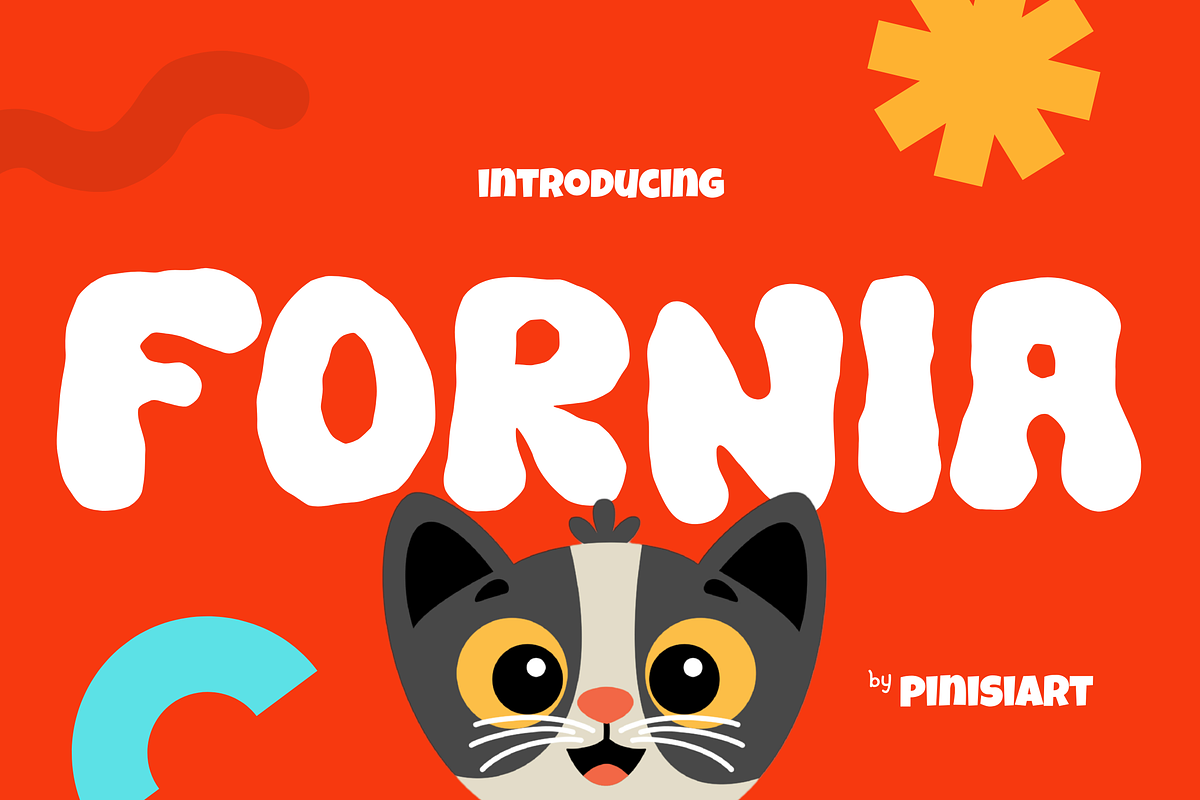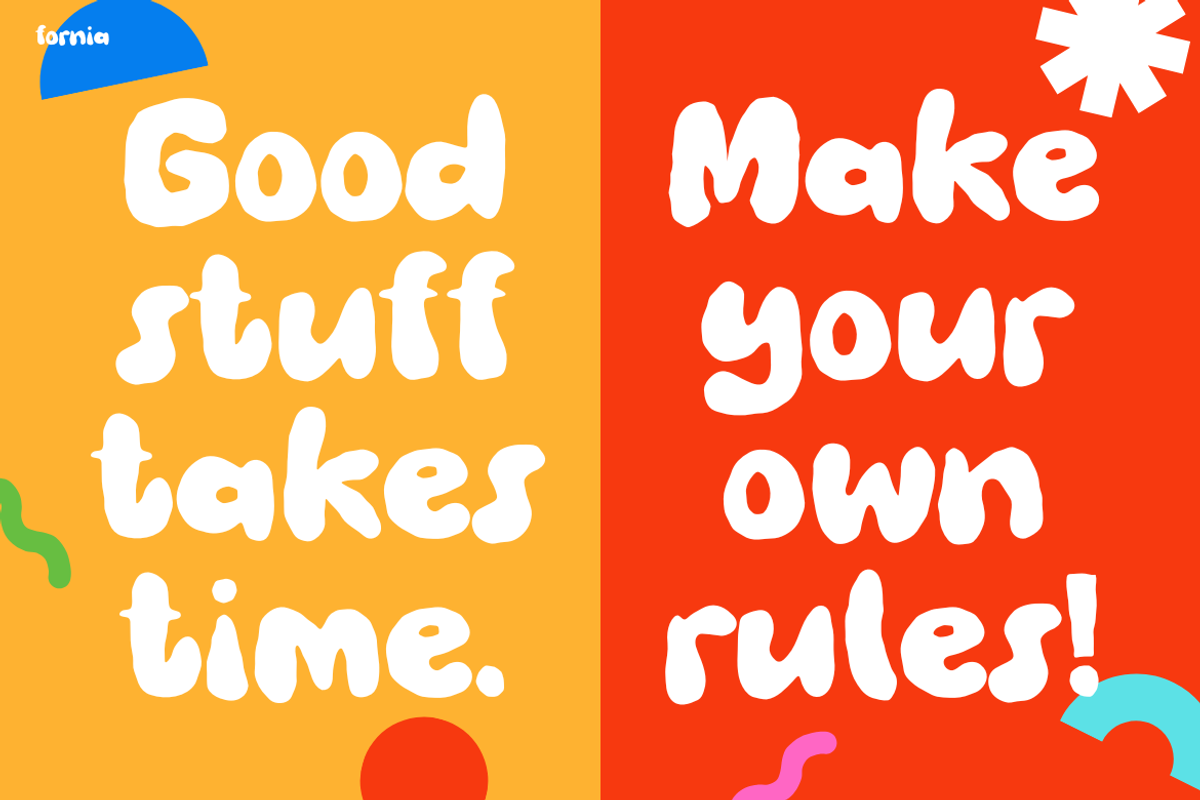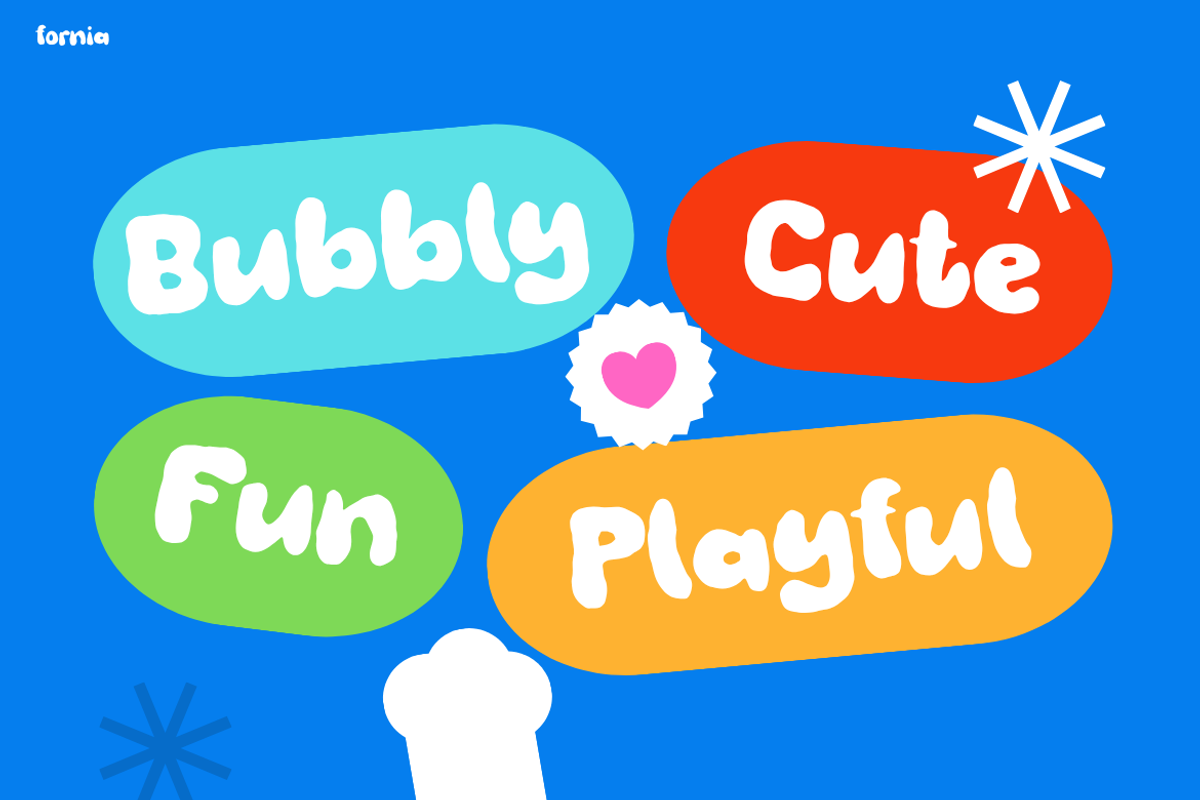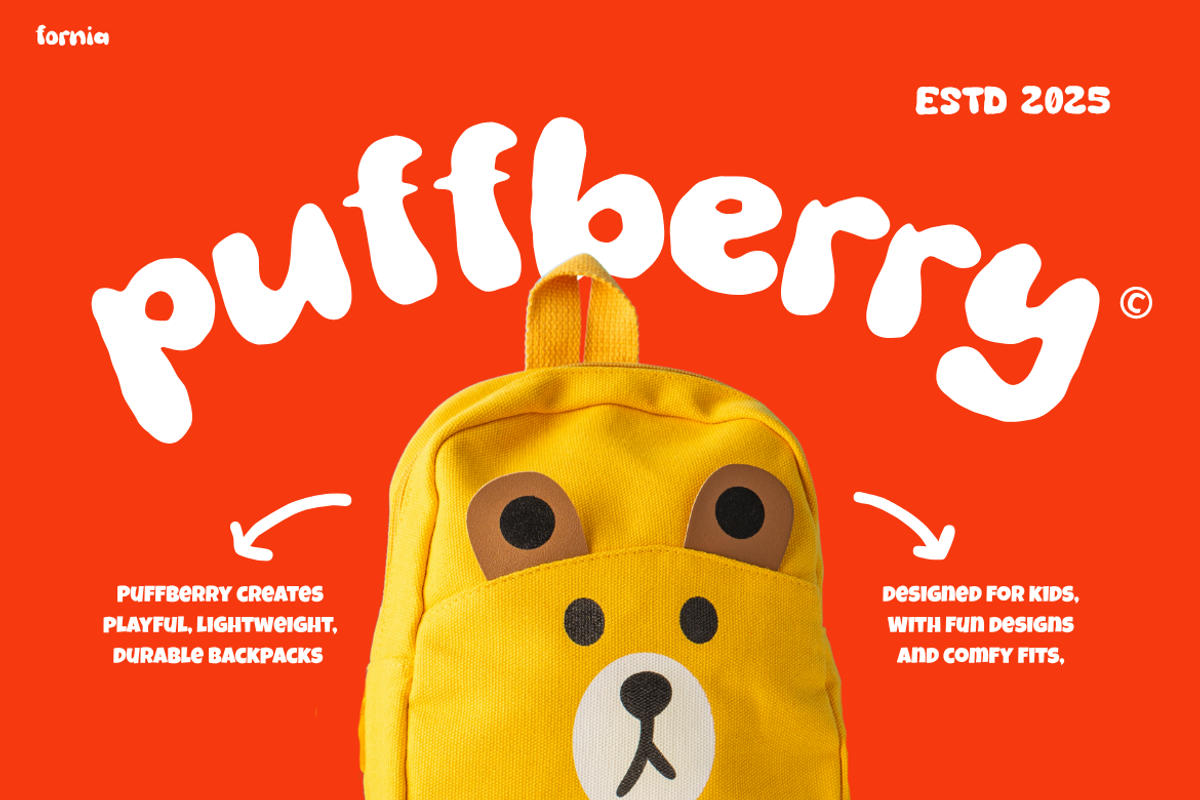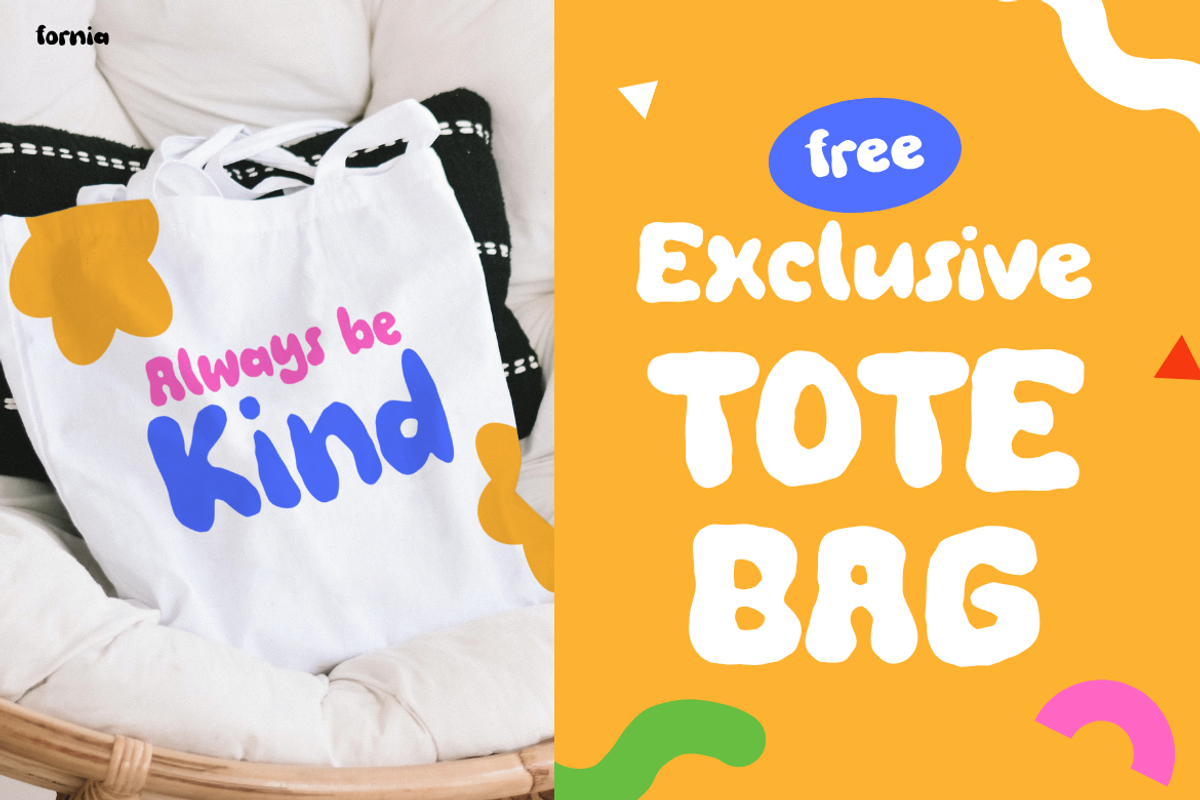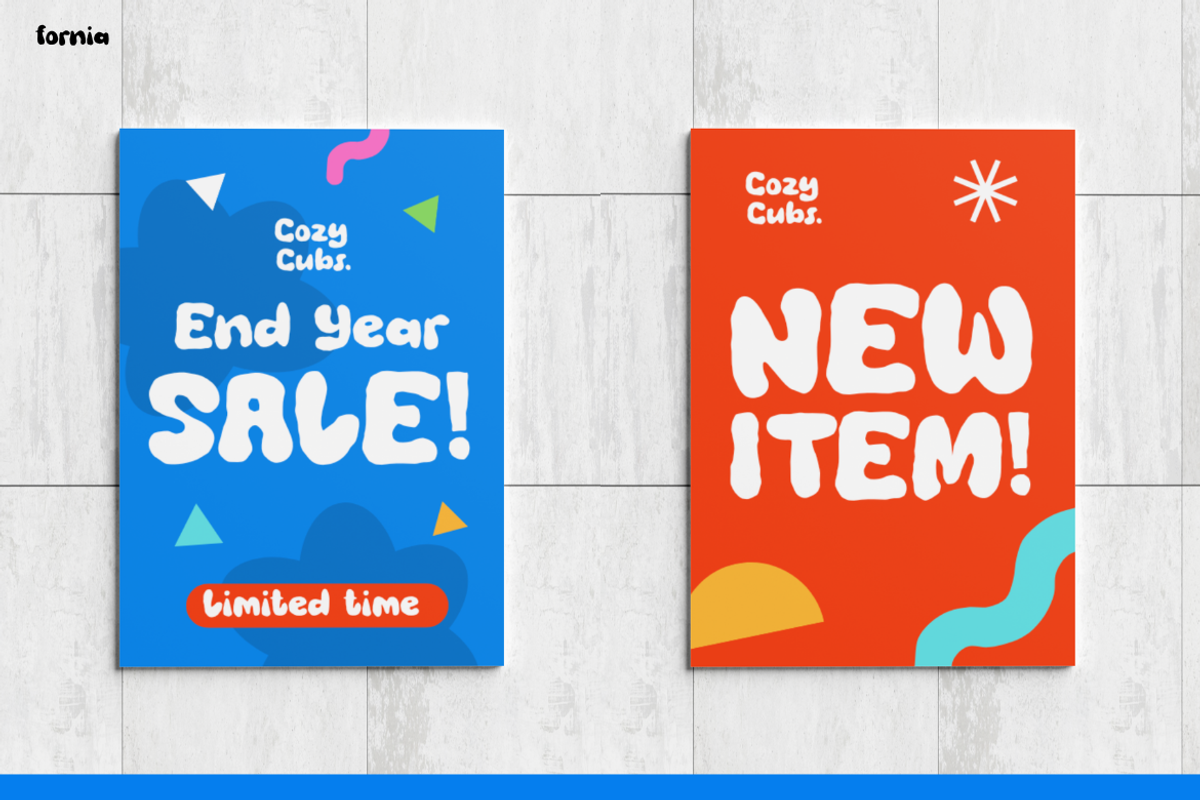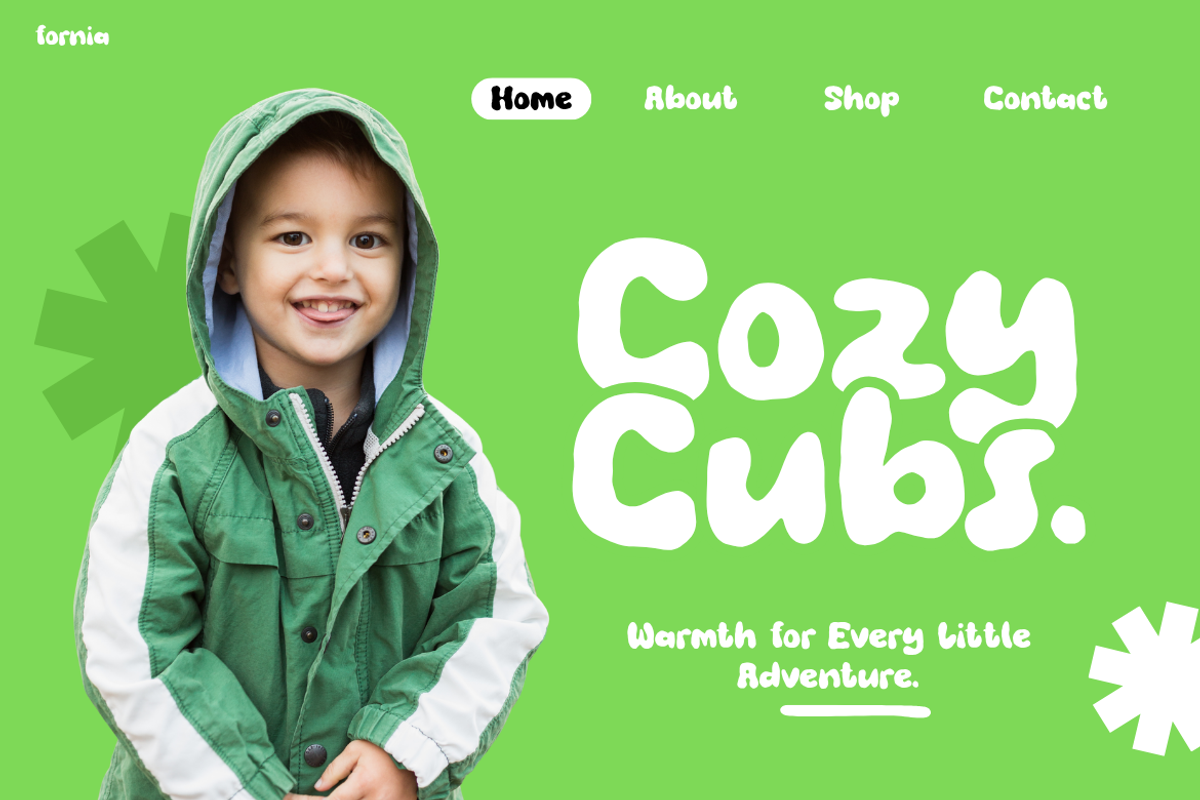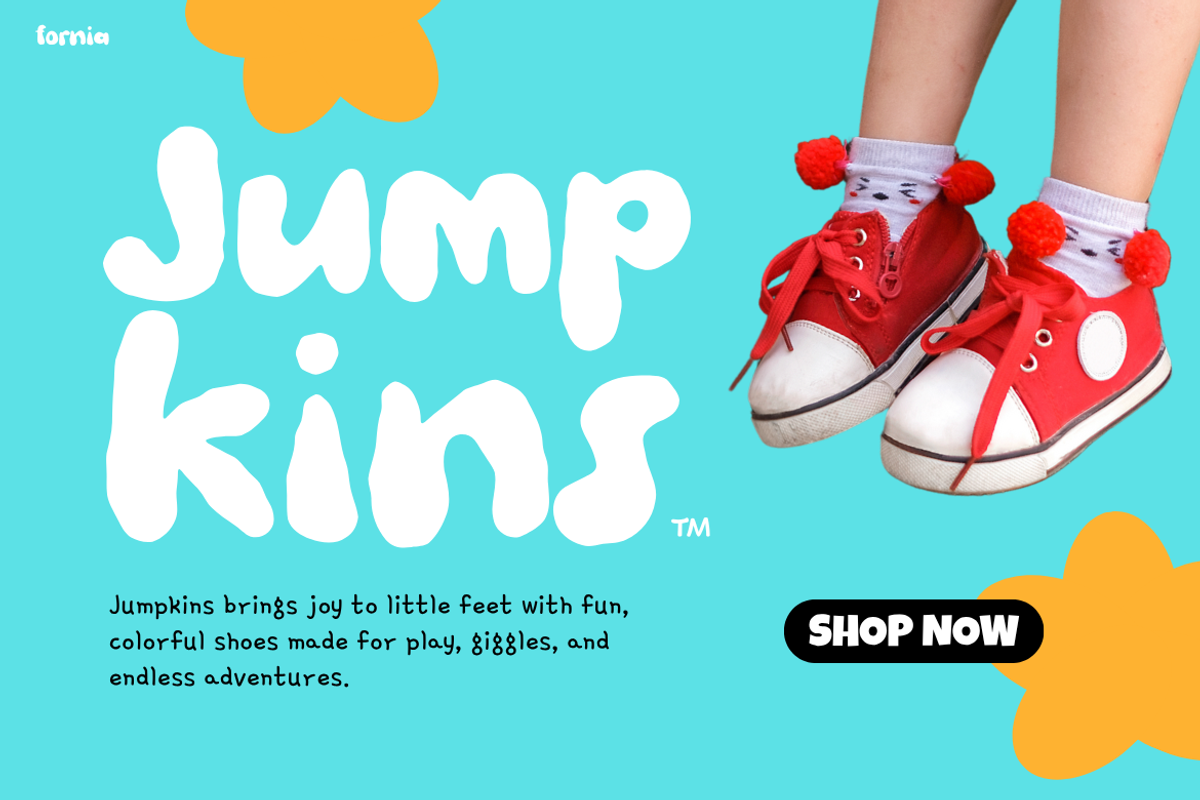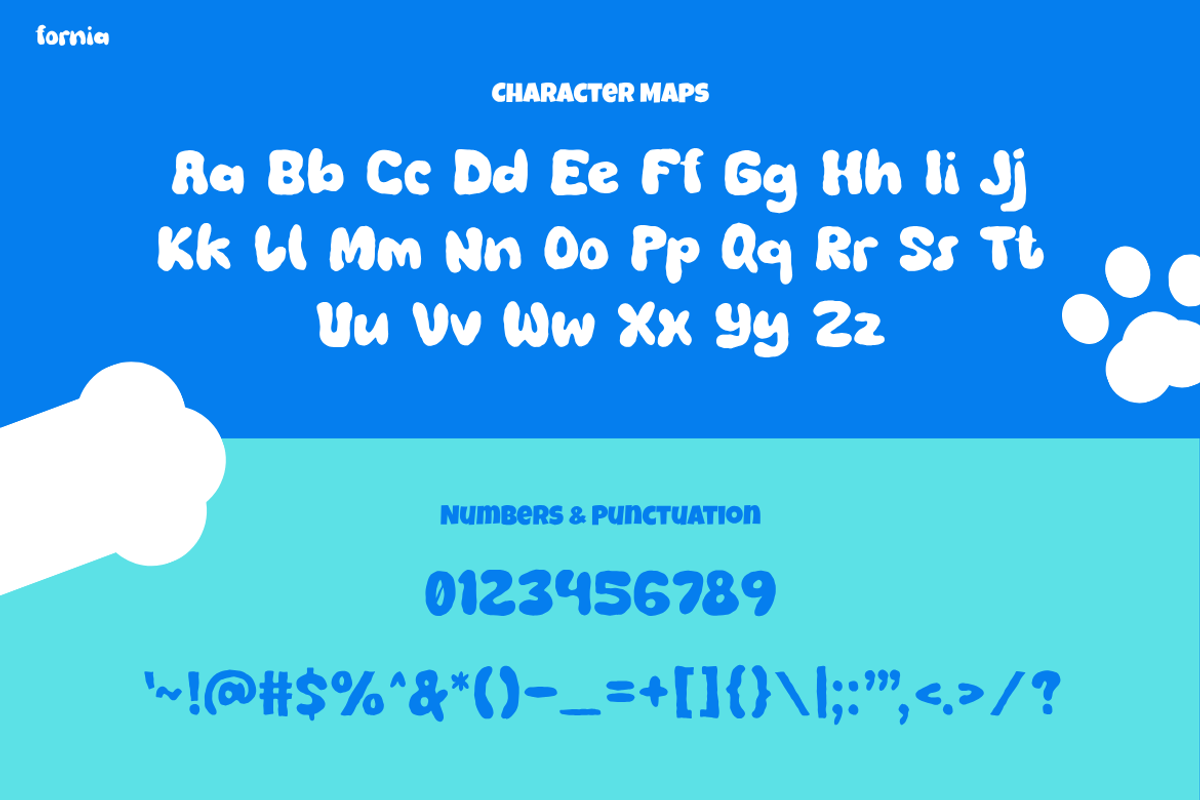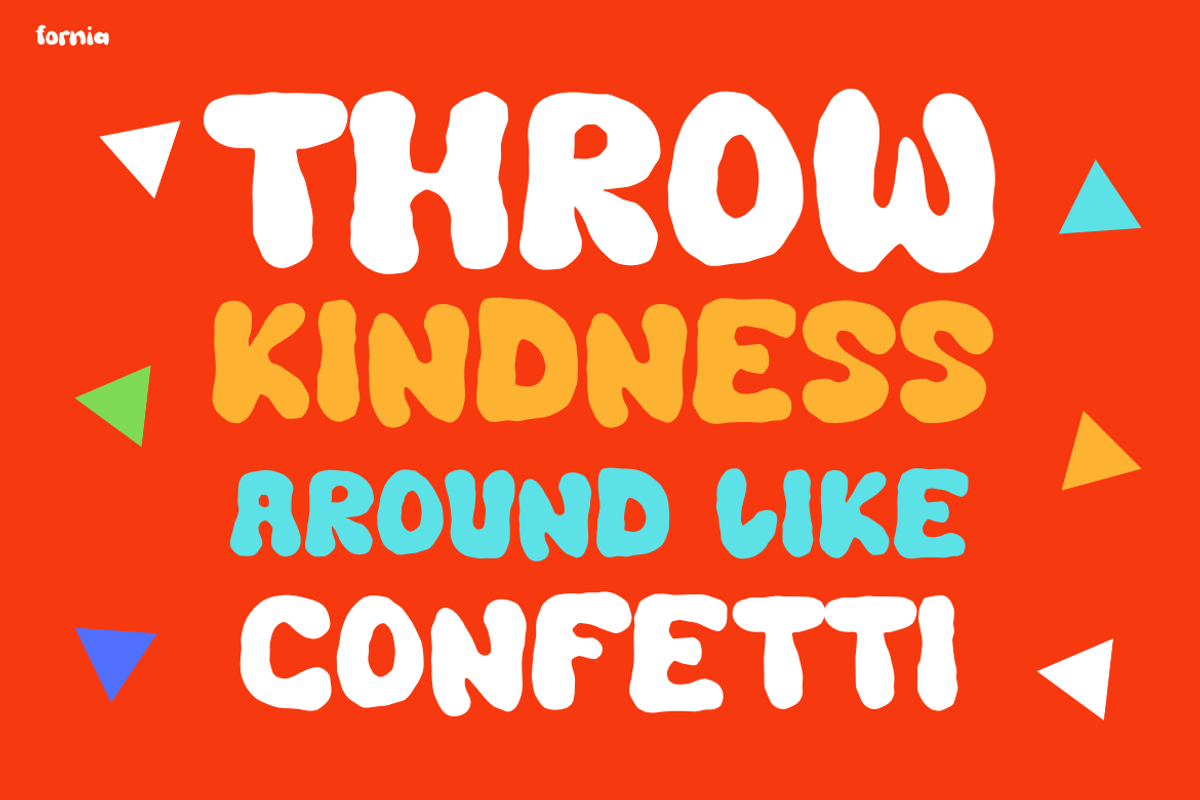
Fornia
Kids Font Fornia – Fun, Playful, and Full of Energy
Kids Font Fornia is more than a typeface—it’s a burst of joy in every letter. The bold curves and rounded shapes make it playful yet clear. Moreover, each character feels alive, adding fun and energy to your designs. This font balances creativity with readability, so your words stay attractive and easy to follow. As a result, Kids Font Fornia brings smiles to every project and turns text into a cheerful experience.
What makes this font so unique is its ability to transform ordinary words into something extraordinary. Its bubbly aesthetic feels friendly, while its smooth strokes keep it professional and polished. In addition, the versatility of Fornia allows you to use it across print, digital, and product design. Whether you want a bold headline for a poster or a playful logo for a brand, this font adapts beautifully. Because of this flexibility, it becomes an essential tool for designers who want to stand out with style.